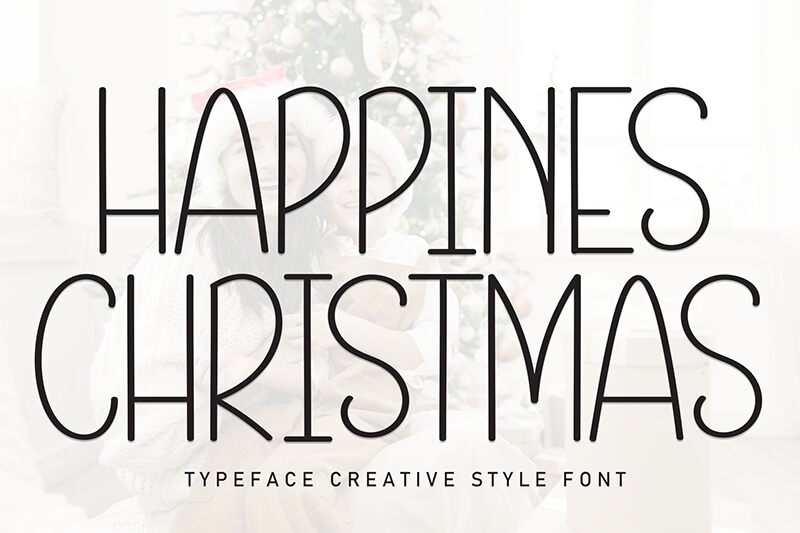
Happines Christmas
Happiness Christmas font is a free handwritten font by Andi Moz, featuring a friendly appearance made with an entirely minimalistic design. It looks modern and rounded while being wiry with light weight and condensed width. Its aesthetic appearance is simple with geometric influence that adds to the elegance of the font, making it carefully special.
Use Happiness Christmas for cards, in festive greeting seasons or all year long to spread love among your family members. Use it for business card packages, logos, stationery designs, posters, flyers, children book covers and illustrations. The versatile typeface can be also applied on home decor items and printed on fabrics such as pillowcases or curtains.